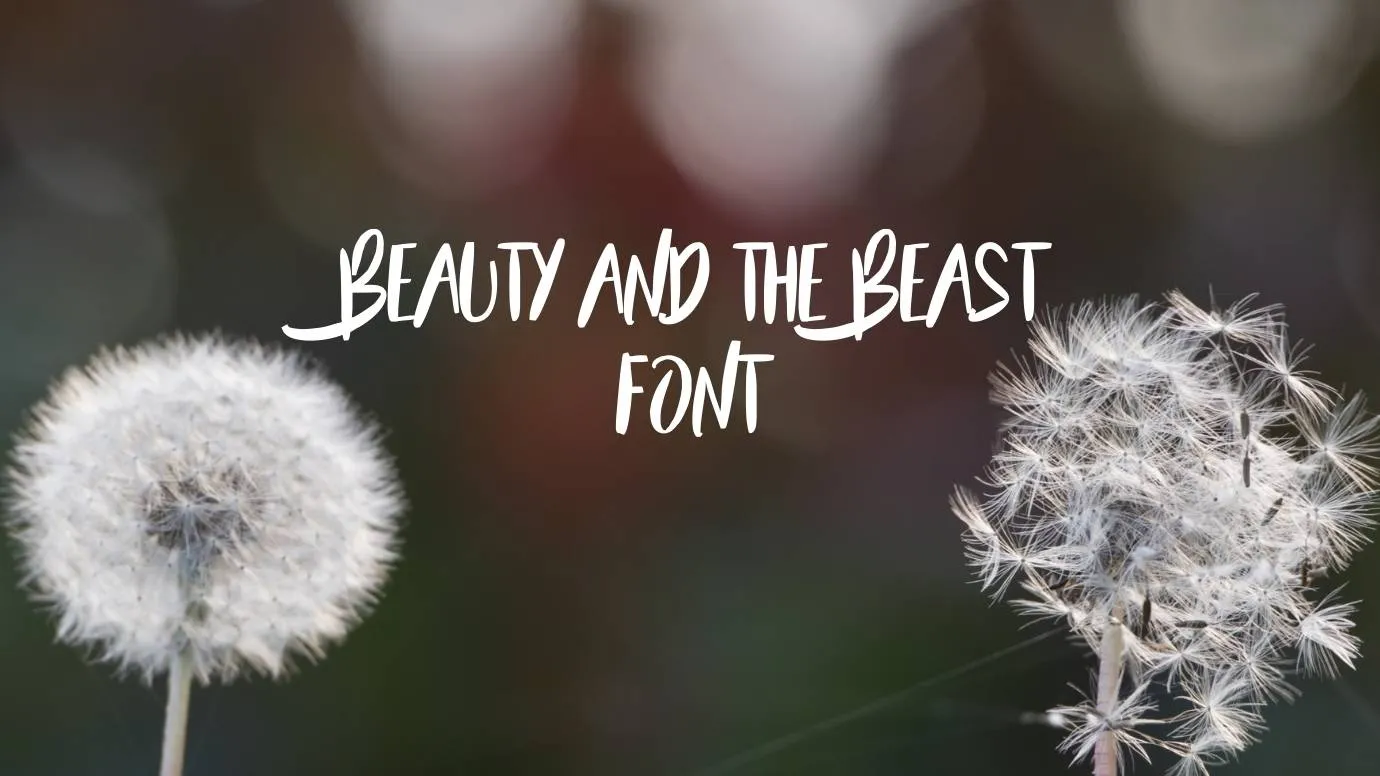
Beauty And The Beast Font Family is an elegant and contemporary font style categorized under script typeface, titled Beauty And The Beast Font. Crafted by Francis John S. Villo,
This font features a wide range of characters including Uppercase, Lowercase, and Numbers. Inspired by the iconic American film “Beauty and the Beast” released in 1991, this font captures the essence of the movie in its design.
Beauty And The Beast Font
NameBeauty And The Beast Font
DesignerFrancis John S. Villo
Typescript